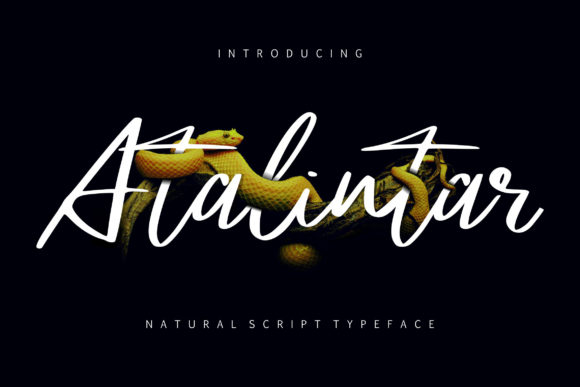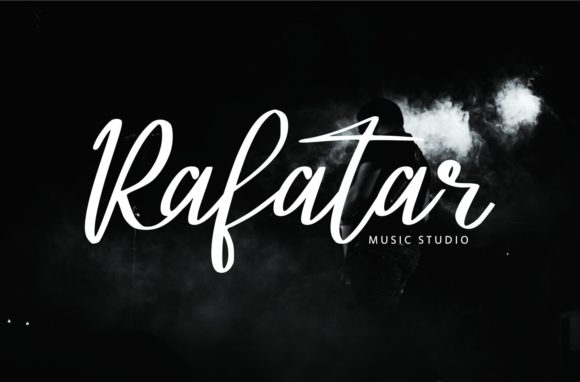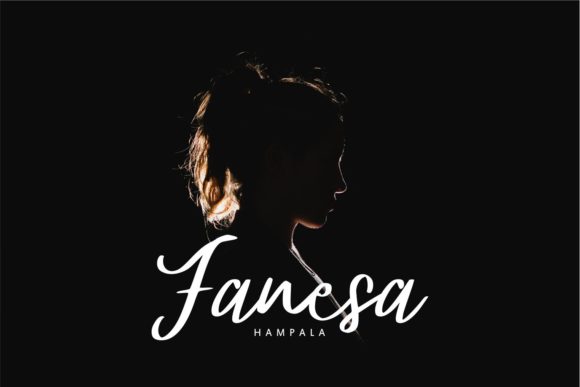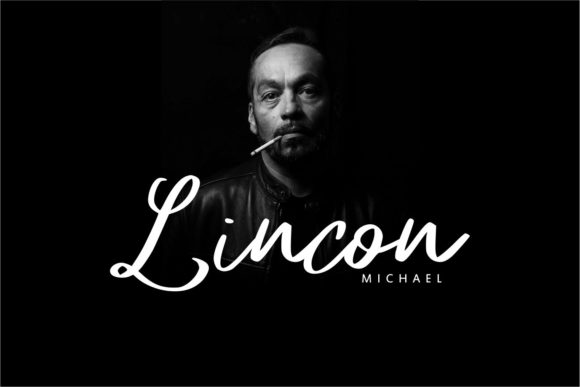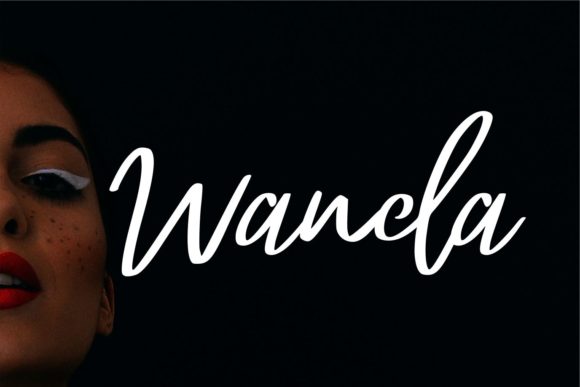
HomeScript FontsAtalintar Font Script Fonts Atalintar Font FacebookXPinterestWhatsApp Atalintar Font Poster 2 Atalintar Font Poster 3 Atalintar Font Poster 4 Atalintar Font Poster 5 About Atalintar Font Atalintar is a natural script with a bold touch. Use it to add an organic feel to any design project. DOWNLOAD ON CREATIVE FABRICAThis font is sold and delivered by Creative Fabrica. Font Canyon may earn a commission if you buy through this link. People also explored Fressia Font Sriquno Kueris Font Memory Font Thinking Font Jelita Font Hytag Font Sweet Beby Font Gebehole Font Back to School Font 331 0 TagsAtalintar Font Previous articleFamous FontNext articleBeliau Font LEAVE A REPLY Cancel reply Comment: Please enter your comment! Name:* Please enter your name here Email:* You have entered an incorrect email address! Please enter your email address here Website: Save my name, email, and website in this browser for the next time I comment. Personal Use Free Miss Love Personal Use Free Read more about this font Valentine Chips Personal Use Free Read more about this font Sybil Green Personal Use Free Read more about this font Kitsor Rauttie Personal Use Free Read more about this font BLOG To increase your work productivity, choose the most readable fonts. In today's fast-paced work environment, where digital communication and information consumption are integral to our daily routines, the choice of fonts can significantly impact... Top 10 Handwritten Fonts That Elevate Your Designs Transform Your Website: Elevate Your Typography with 7 Best Web Font Generators Where to Buy American Fonts Online in 2024